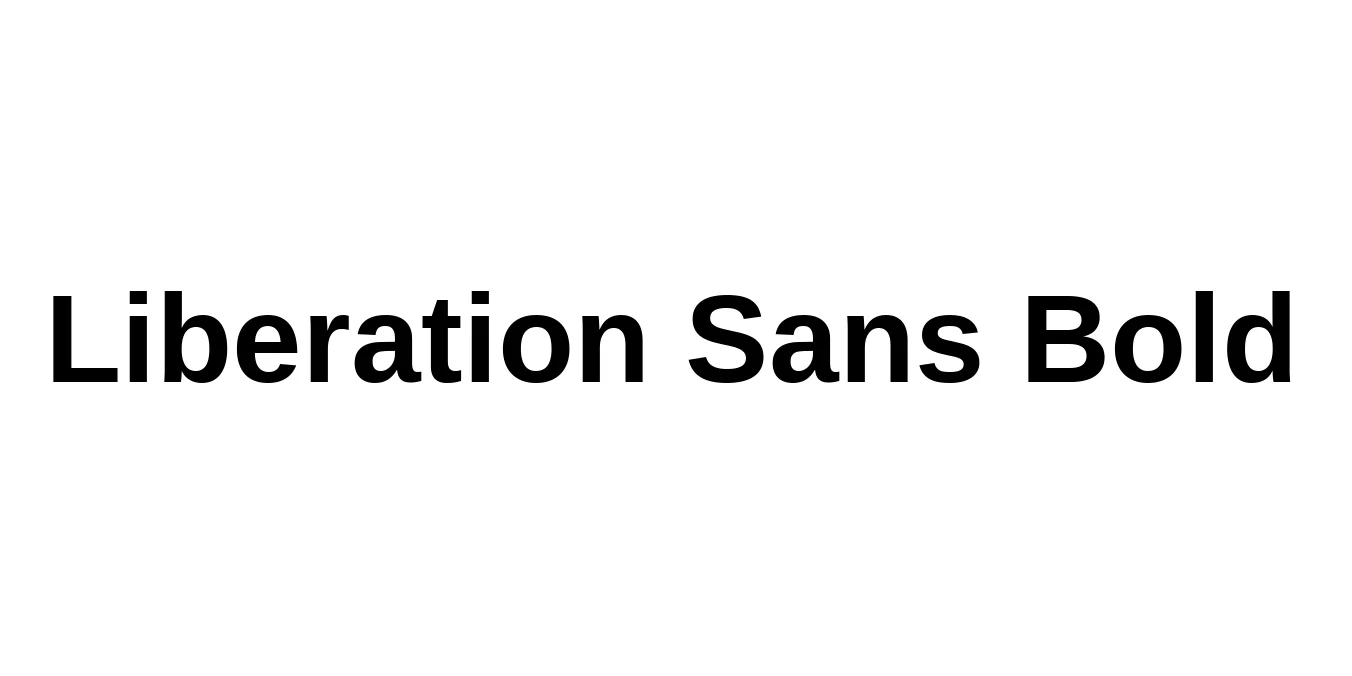
Liberation Sans Bold
Designed by Steve Matteson
Liberation Sans Bold is a key component of the Liberation font family, which was originally commissioned by Red Hat in 2007. Developed by Steve Matteson at Ascender Corp, the primary objective of this typeface was to provide a set of high-quality, open-source fonts that are metrically compatible with the most widely used proprietary fonts in the Windows environment. Specifically, Liberation Sans was engineered to be a drop-in replacement for Arial, ensuring that document layouts remain perfectly preserved when shared across different operating systems like Linux and Windows.
The bold variant of this family is characterized by its clean, sans-serif aesthetic and exceptional legibility at various scales. Because it adheres to the SIL Open Font License, it has become a staple in the open-source community, serving as the default typeface for many Linux distributions and office suites like LibreOffice. Its robust design and functional clarity make it an excellent choice for developers and designers who require a professional, reliable, and legally unencumbered typeface for complex digital environments.
Liberation Sans Bold Best Uses
Provides strong visual weight and clarity for titles and headers.
Excellent for buttons, menus, and dashboard elements due to high legibility.
Maintains layout consistency when exchanging files between different OS platforms.
A reliable choice for clean, modern web typography and body text emphasis.